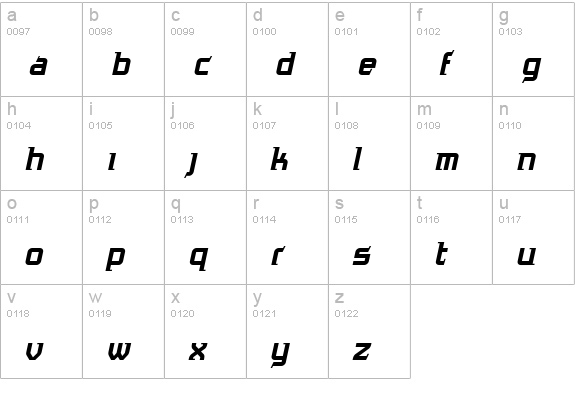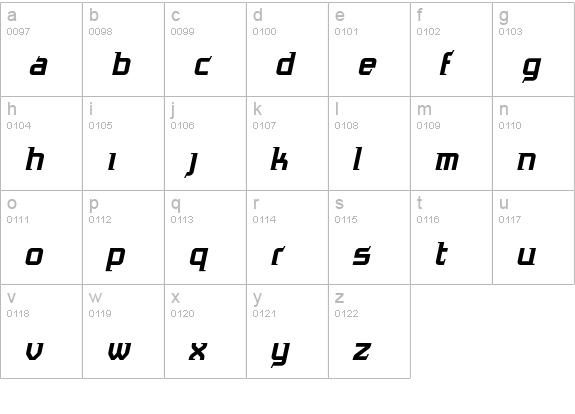
Antigrav BB Italic Font Details
Antigrav BB Italic is a distinctive, italic variant in the Antigrav typeface family \xE2\x80\x94 well suited to design and typography projects.
Antigrav BB Italic font is a sleek and futuristic typeface perfect for modern design projects. Its stylish italicized form adds a touch of sophistication to any text or layout. With its clean lines and unique design, Antigrav BB Italic font is sure to make a statement in your creative projects. And the best part? This font is available for free download at FontsMarket.com. Simply visit the website to get your hands on this versatile typeface and start incorporating it into your designs today. Don't miss out on the opportunity to add Antigrav BB Italic font to your font collection - download it now and elevate your projects with its contemporary flair.